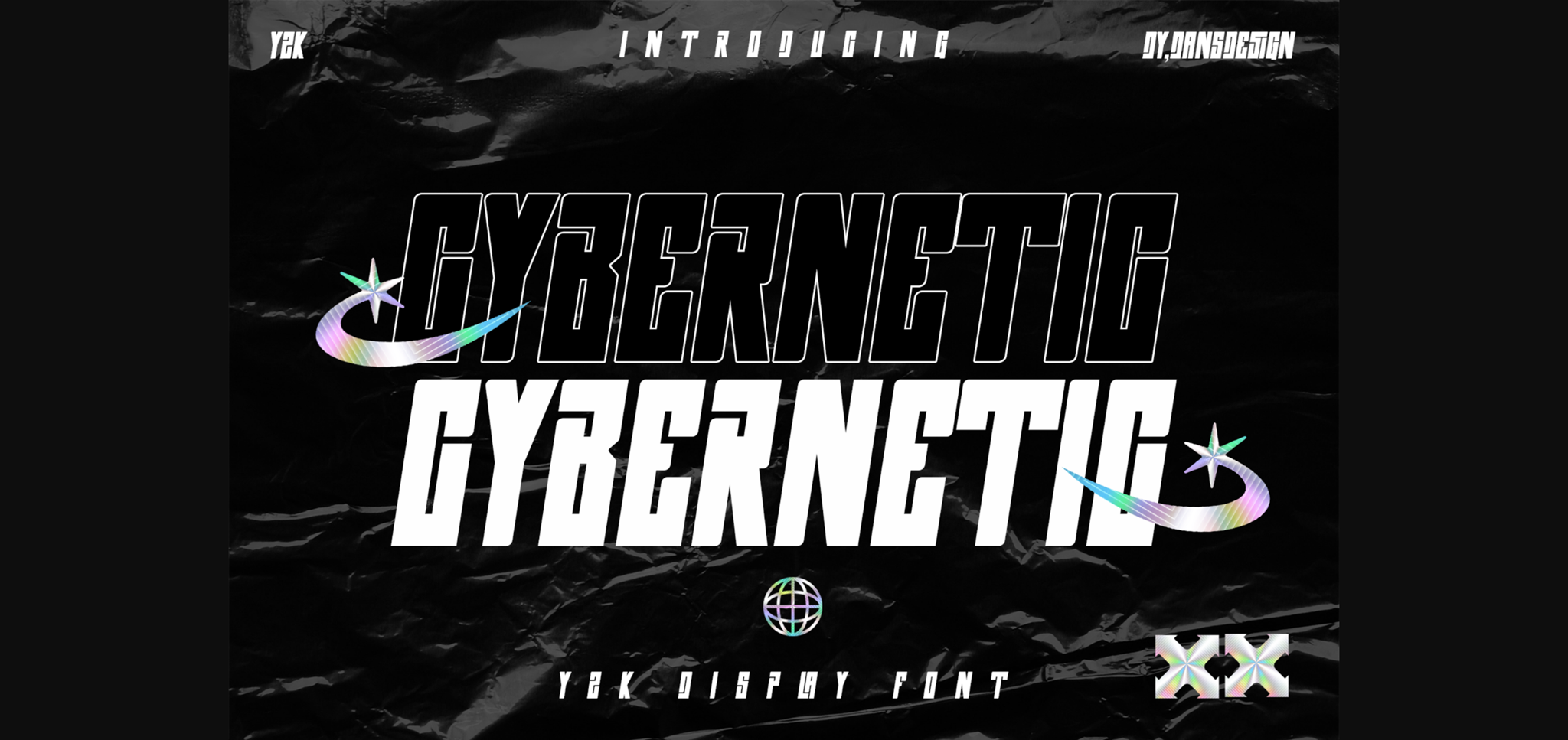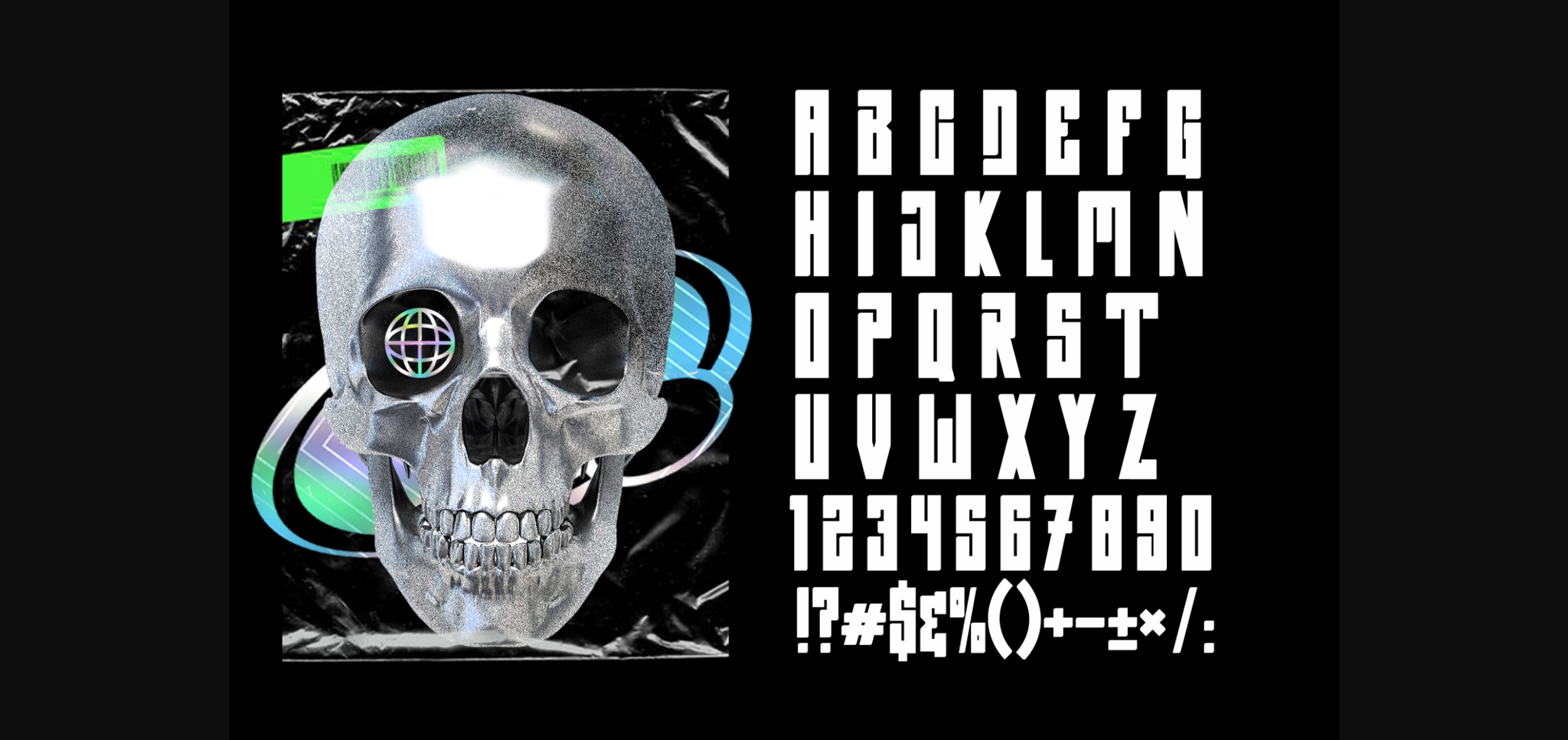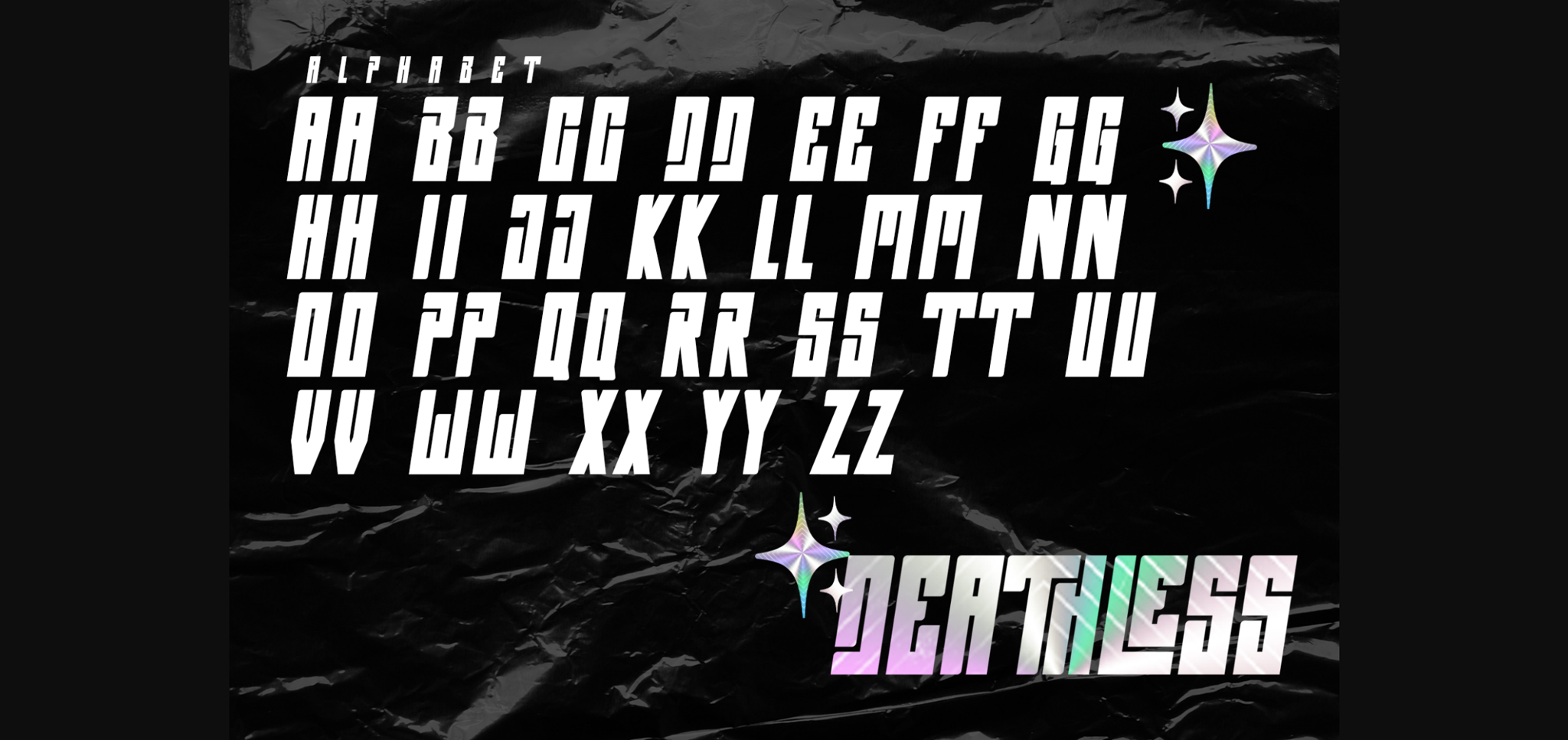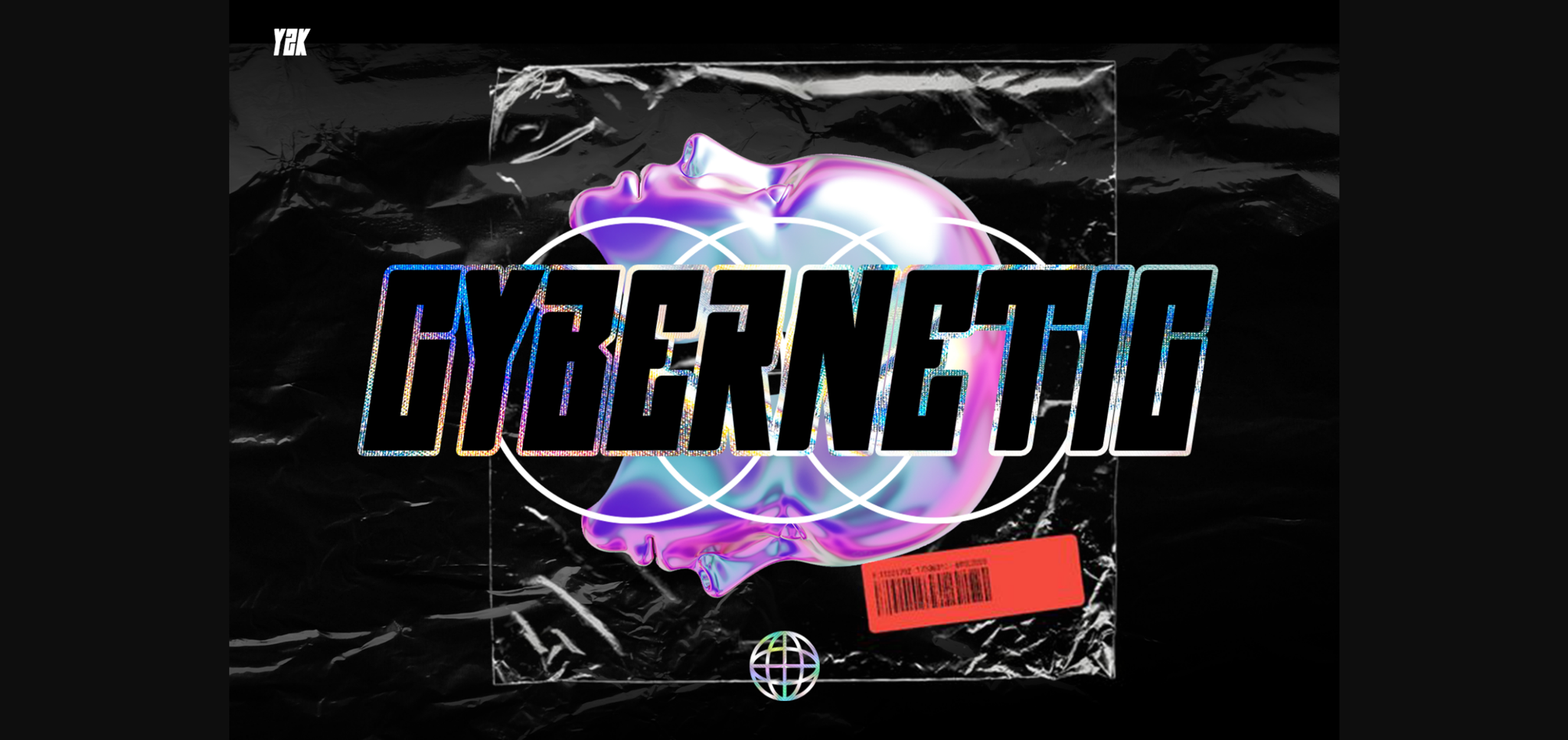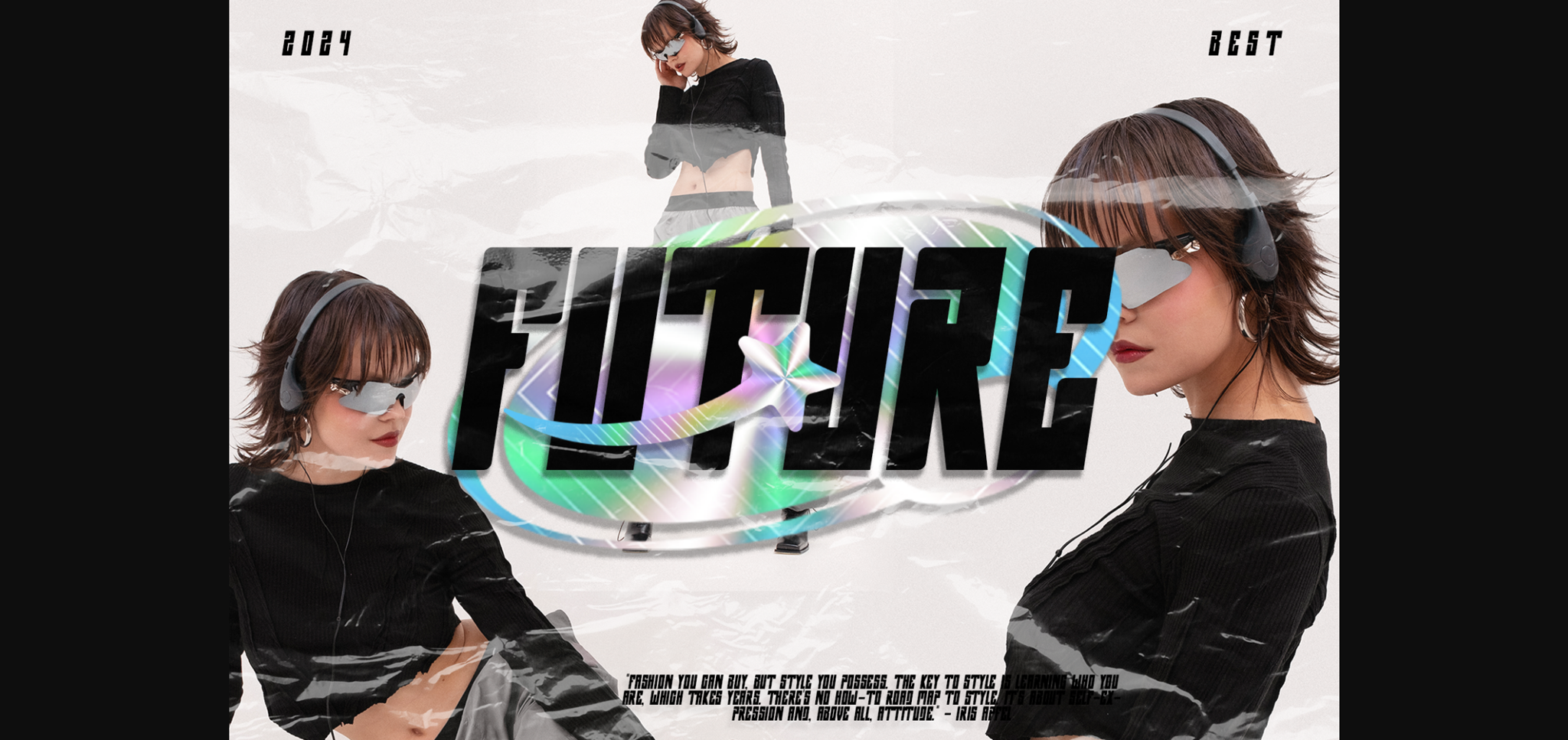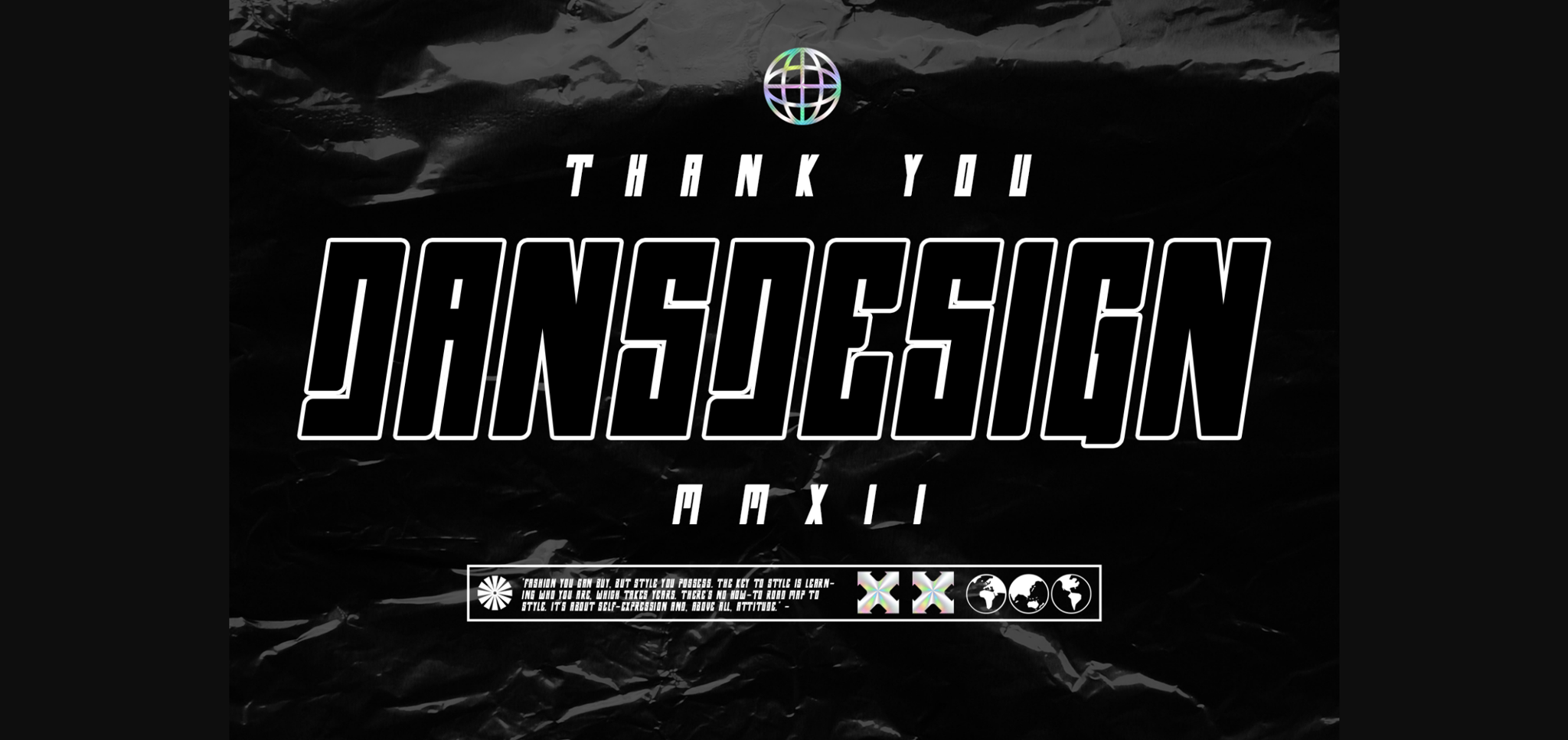
Cybernetic Font
About Cybernetic Font
CYBERNETIC futuristic Y2k Cyberpunk Font
CYBERNETIC futuristic Y2k Cyberpunk is a highly detailed and slick Blackletter font.
It will be a great choice for beautiful cyberpunk futuristic designs, sports business branding, logos, vintage designs, films, posters, clothing, illustrations, and more.